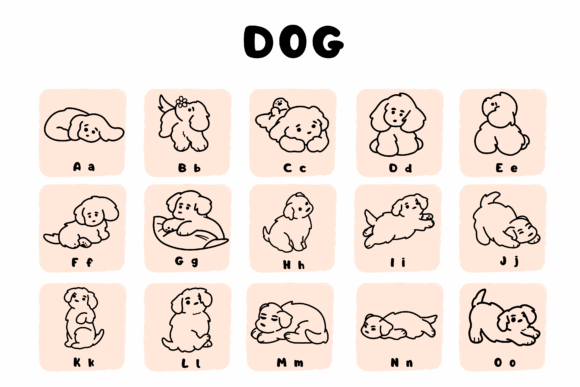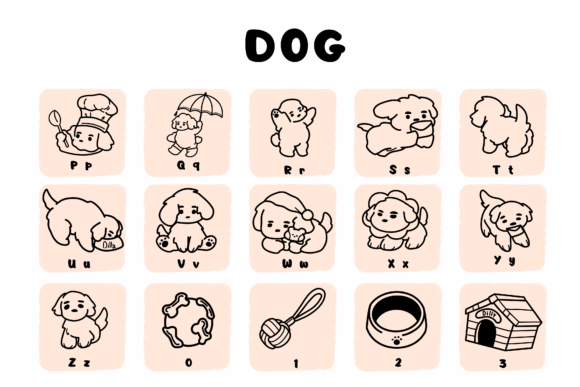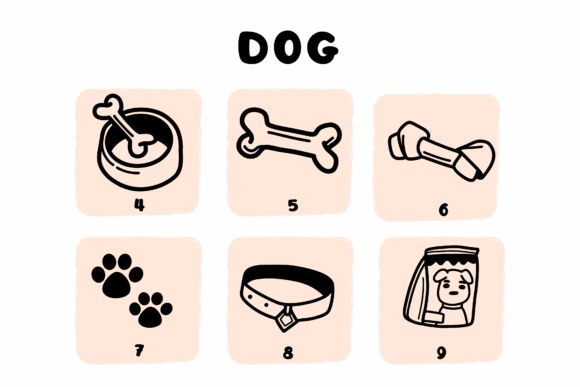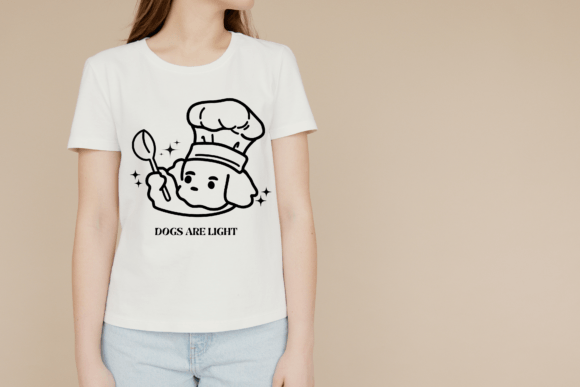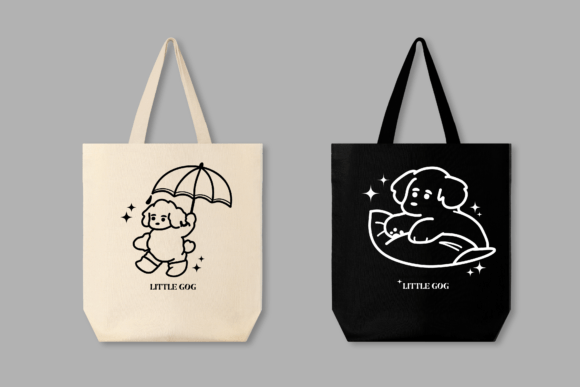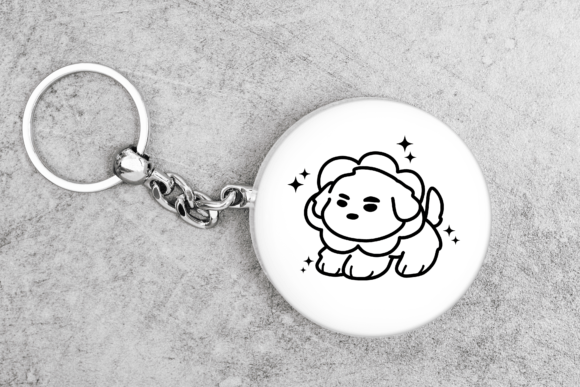
Unleash Creativity with Dog Font: The Ultimate Canine-Themed Dingbats Font
Are you a designer, crafter, or DIY enthusiast looking for a unique and playful font to elevate your creative projects? Look no further than Dog Font, a delightful dingbats font with a canine theme. This charming font is perfect for adding a touch of whimsy and fun to your designs, and we’re excited to explore its many uses and benefits.
What is Dog Font?
Dog Font is a dingbats font that features an adorable collection of dog-themed characters, including illustrations of various breeds, dog bones, paws, and more. This font is designed to bring a smile to your face and inspire your creativity. With Dog Font, you can add a personal touch to your designs and make them stand out from the crowd.
Uses for Dog Font
Dog Font is incredibly versatile and can be used in a wide range of creative projects, including:
- Wedding Invitations: Add a playful touch to your wedding stationery with Dog Font. You can use it to create custom invitations, save-the-date cards, or thank-you notes.
- DIY and Crafts: Dog Font is perfect for crafters who love to make handmade cards, gift tags, or scrapbook pages. You can use it to add a personal message or a cute illustration to your projects.
- Decorations: Use Dog Font to create custom signs, banners, or wall art for dog lovers. You can also use it to make personalized dog tags or collars.
- Logos and Branding: Dog Font can be used to create a fun and playful logo for pet-related businesses, such as dog daycare centers, pet groomers, or animal shelters.
- Social Media Graphics: Add a touch of whimsy to your social media graphics, such as Facebook posts, Instagram stories, or Twitter headers, with Dog Font.
Benefits of Using Dog Font
Dog Font offers several benefits that make it a great addition to your font collection:
- Unique and Playful: Dog Font adds a touch of personality to your designs and sets them apart from more traditional fonts.
- Scalable: Dog Font is designed to be scalable, so you can use it in a variety of projects, from small crafts to large signs.
- Fun and Engaging: Dog Font is sure to bring a smile to your face and inspire your creativity.
Tips for Using Dog Font
Here are a few tips to help you get the most out of Dog Font:
- Experiment with Different Sizes: Dog Font looks great in a variety of sizes, from small and delicate to large and bold.
- Combine with Other Fonts: Try pairing Dog Font with other fonts to create a unique and interesting contrast.
- Use in Combination with Images: Dog Font looks great when used in combination with images of dogs or other animals.
Dog Font is a delightful dingbats font that is sure to bring a touch of whimsy and fun to your creative projects. With its canine theme and playful characters, it’s perfect for designers, crafters, and DIY enthusiasts who love dogs. Whether you’re creating wedding invitations, DIY crafts, or social media graphics, Dog Font is a great choice. So why not give it a try and see how it can enhance your designs?